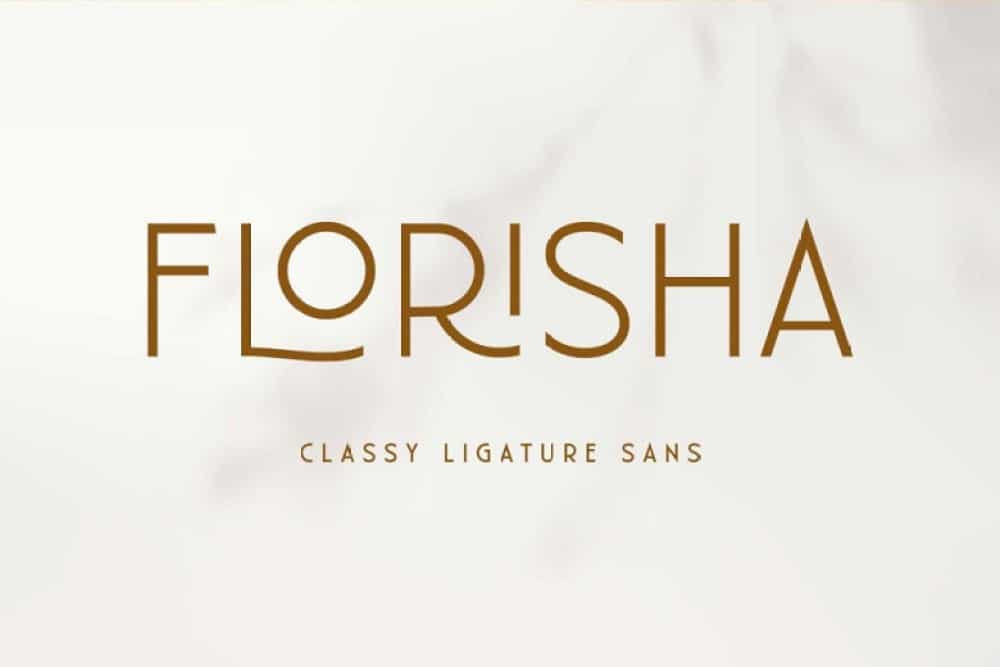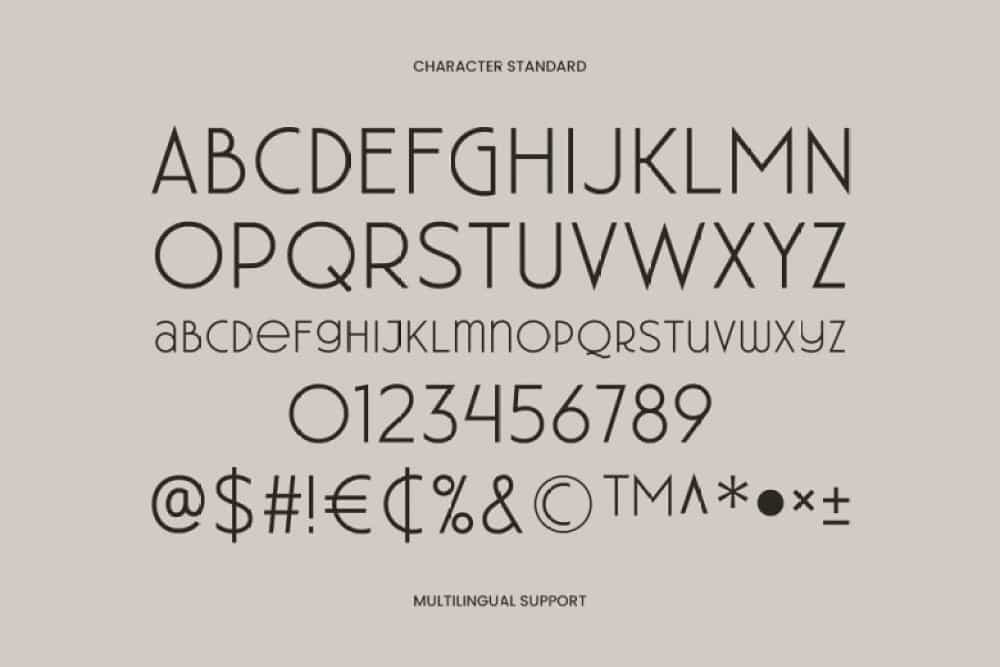
Get a dose of sunshine in your day with Florisha – a cheerful but refined sans-serif display font with Winnie-the-Pooh like characters and symbols. This is because all its letters have equal height be it the lower case or the upper case giving it a more classy and simple look. It is designed from geometric shapes and vacant areas and it gives a clear layout.